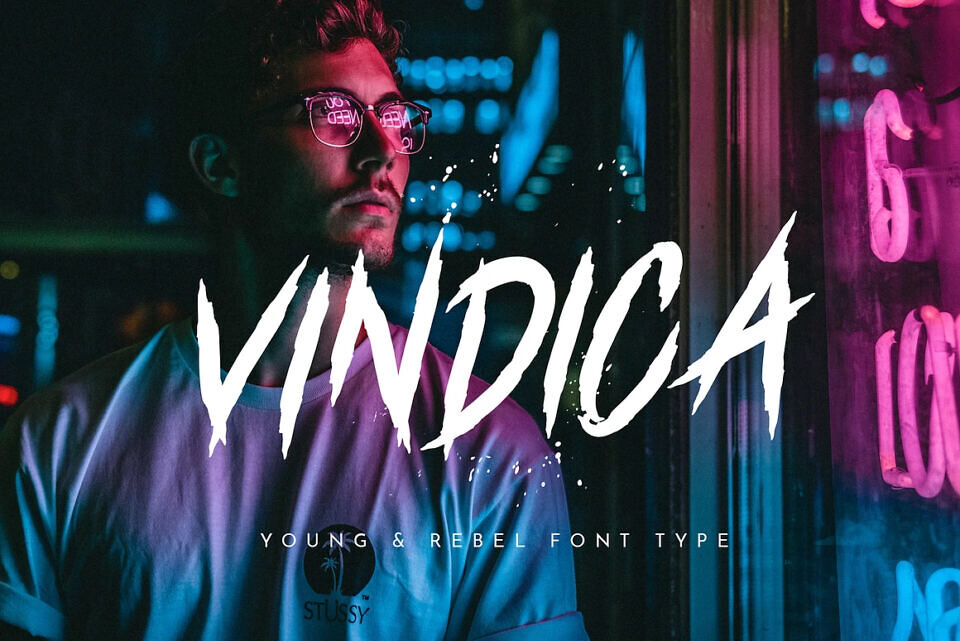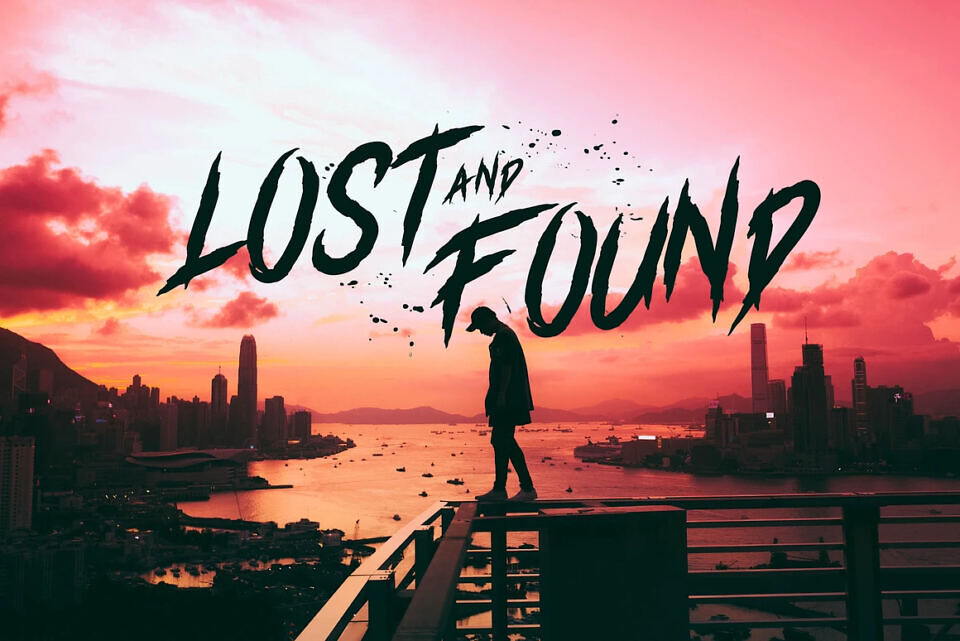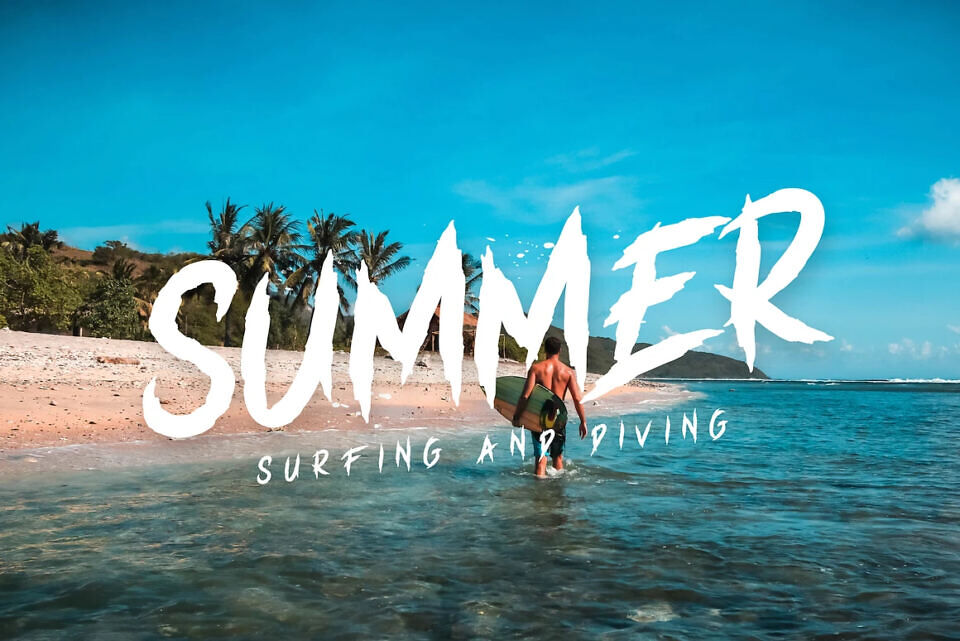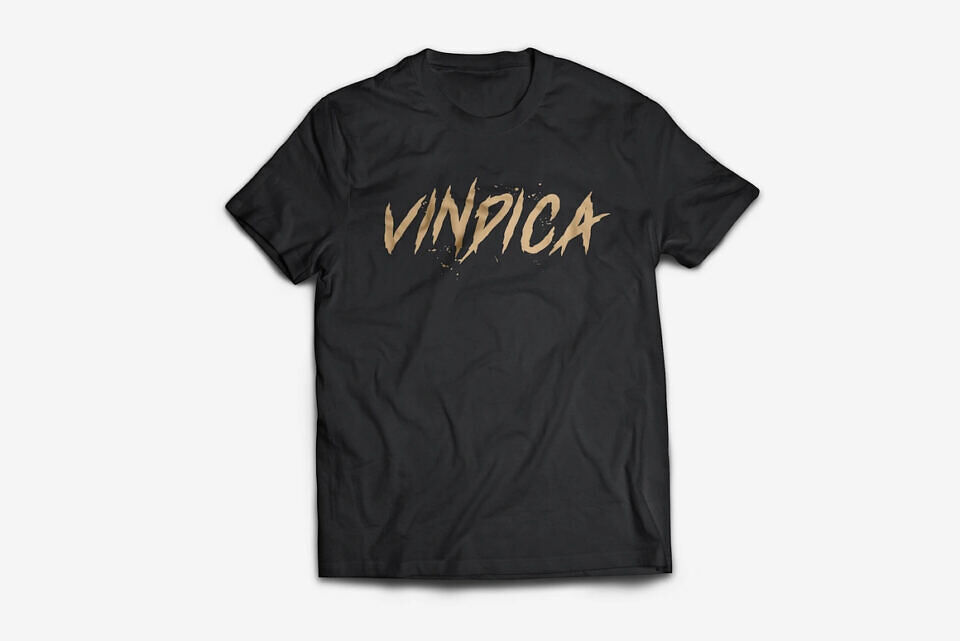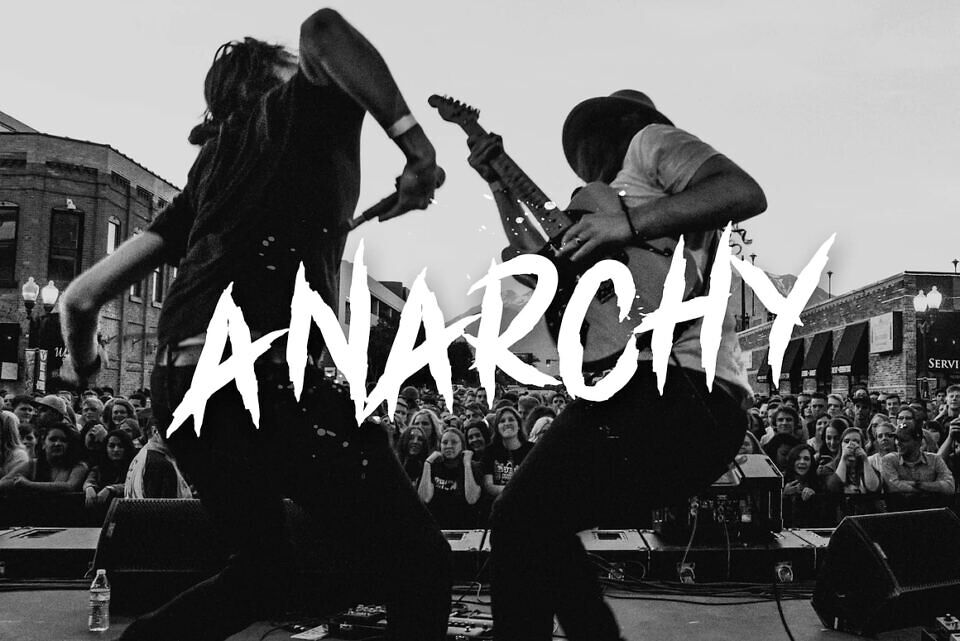
Vindica is a wonderfully dynamic display font with a ton of movement and edge. This rebel font looks great splayed across a composition, and across a wide range of style types.